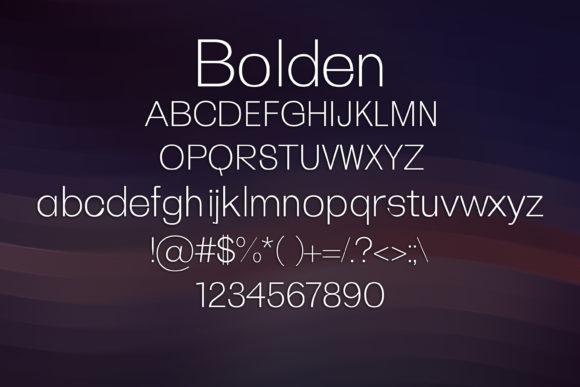
The Bolden Font: A Modern Twist on Traditional Sign Painting
I’ll never forget the struggle I faced while working on a signage project for a local café. My client wanted a font that was clean, modern, and would stand out on their outdoor menu board. I scoured the internet, trying font after font, but nothing seemed quite right. That was until I stumbled upon the Bolden Font. Inspired by traditional sign painting with a modern twist, this stunning sans serif font has become a staple in my design toolkit.
• ✨ Clean and minimal design that’s perfect for modern projects
• 💡 Unique character set with OpenType features and glyphs
• 🎨 Versatile and adaptable to various design styles
• 🤔 Limited language support (for now, it’s mostly English and some European languages)
• ⚠️ Some users might find the font too similar to others in the sans serif family
The Designer Inspiration Behind Bolden Font
The Bolden Font was created with the goal of merging traditional sign painting techniques with modern design sensibilities. The designer aimed to craft a font that would be both nostalgic and forward-thinking, perfect for designers and crafters looking for a unique touch.
Q: What inspired the creation of the Bolden Font?
A: The Bolden Font was inspired by traditional sign painting, with a modern twist to make it suitable for contemporary designs.
Q: Does the Bolden Font support multiple languages?
A: Currently, the Bolden Font supports English and some European languages. For more information on language support, it’s best to consult the font documentation or contact the designer.
Q: How does the Bolden Font compare to other sans serif fonts?
A: The Bolden Font stands out due to its unique character set, clean design, and OpenType features. While it shares similarities with other sans serif fonts, its distinct personality makes it a great choice for designers looking for something fresh.